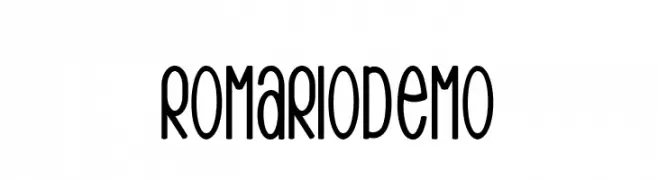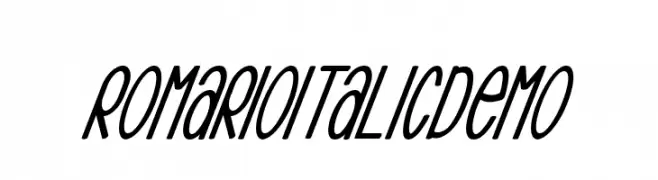
A modern, narrow font with playful, elongated characters and consistent styling.
A sleek, italicized font with elongated, narrow characters for a dynamic look.